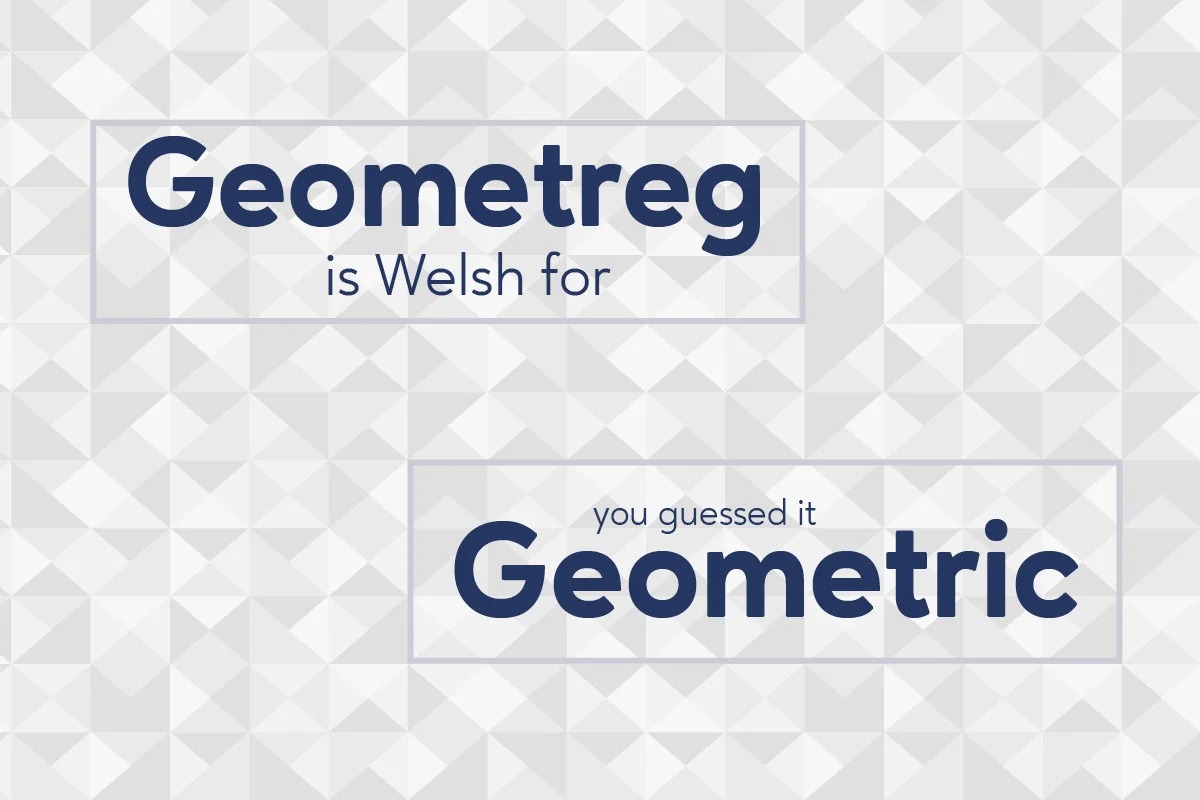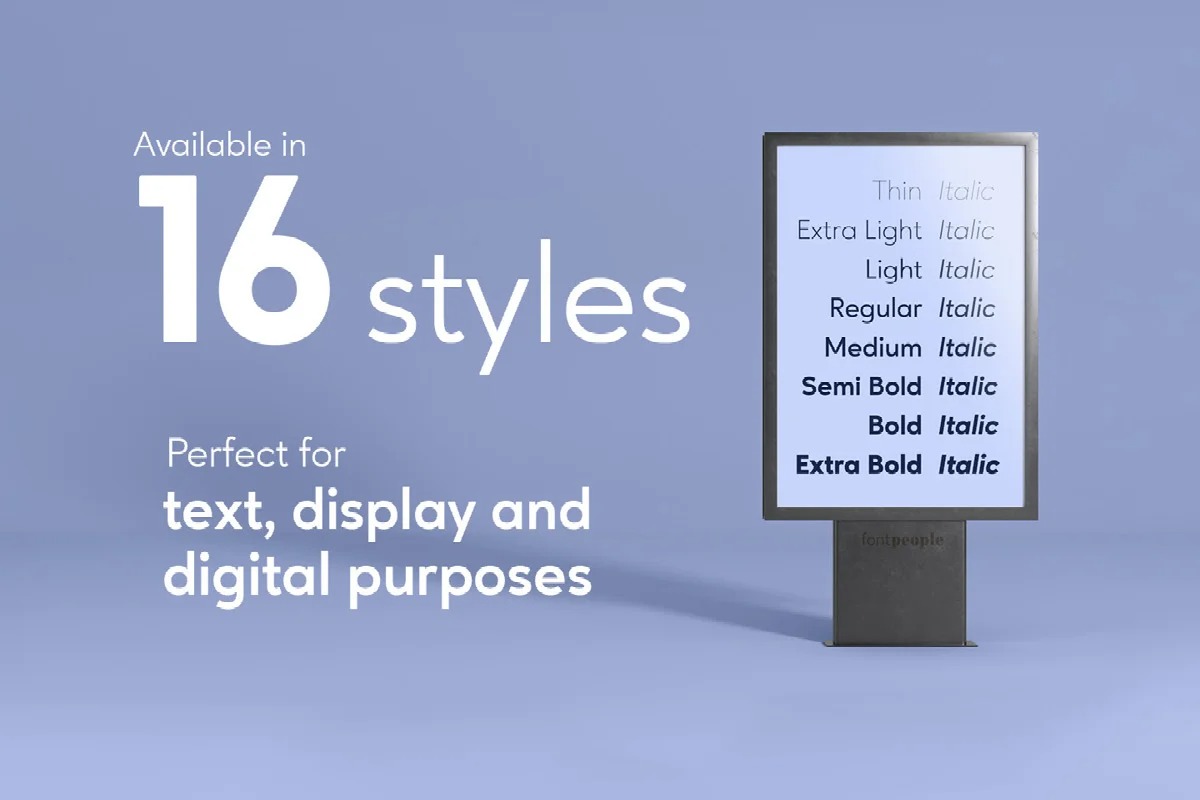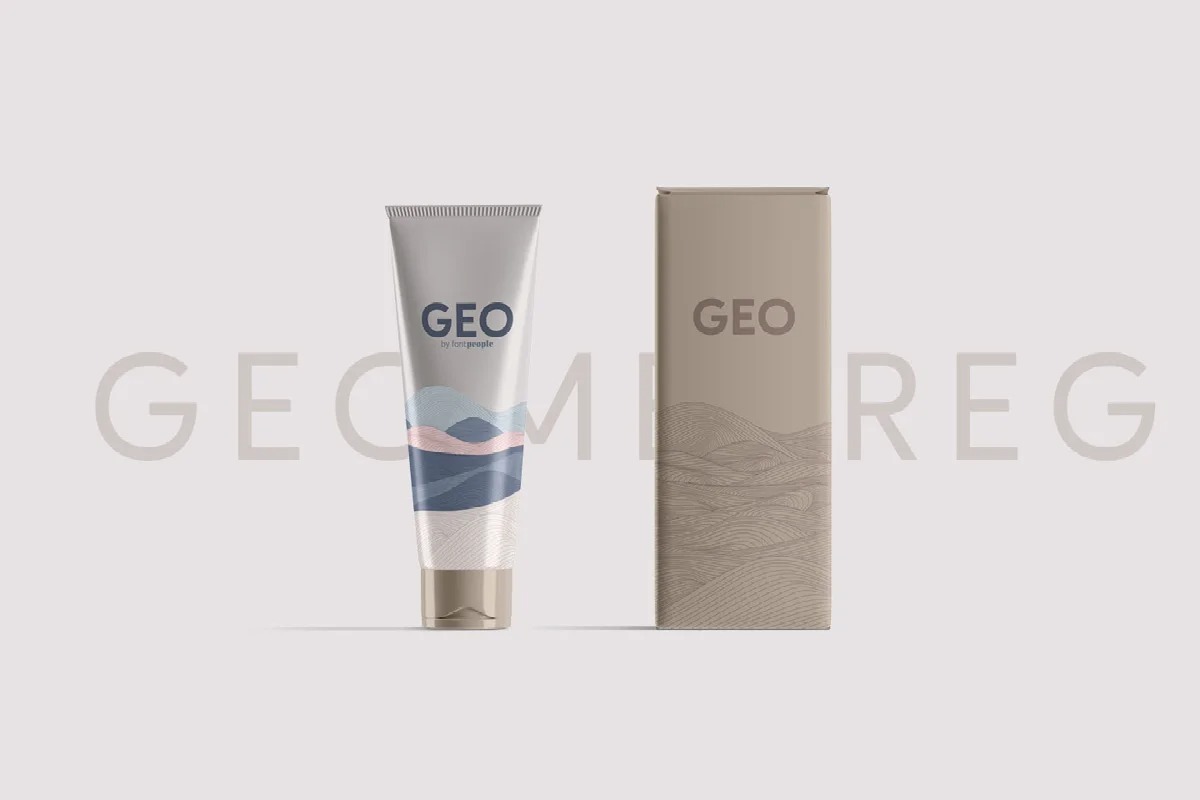
Geometreg Font Family
Geometreg Sans Serif Font
This font is a modern sans serif family. Geometreg Font family comes in various sizes from Thin to Black, giving you the freedom to get creative with this font. It’s designed and shared by FontPeople. A caringly crafted geometric sans serif typeface that is minimalist, graceful and eccentric, suitable for text, display and digital purposes.